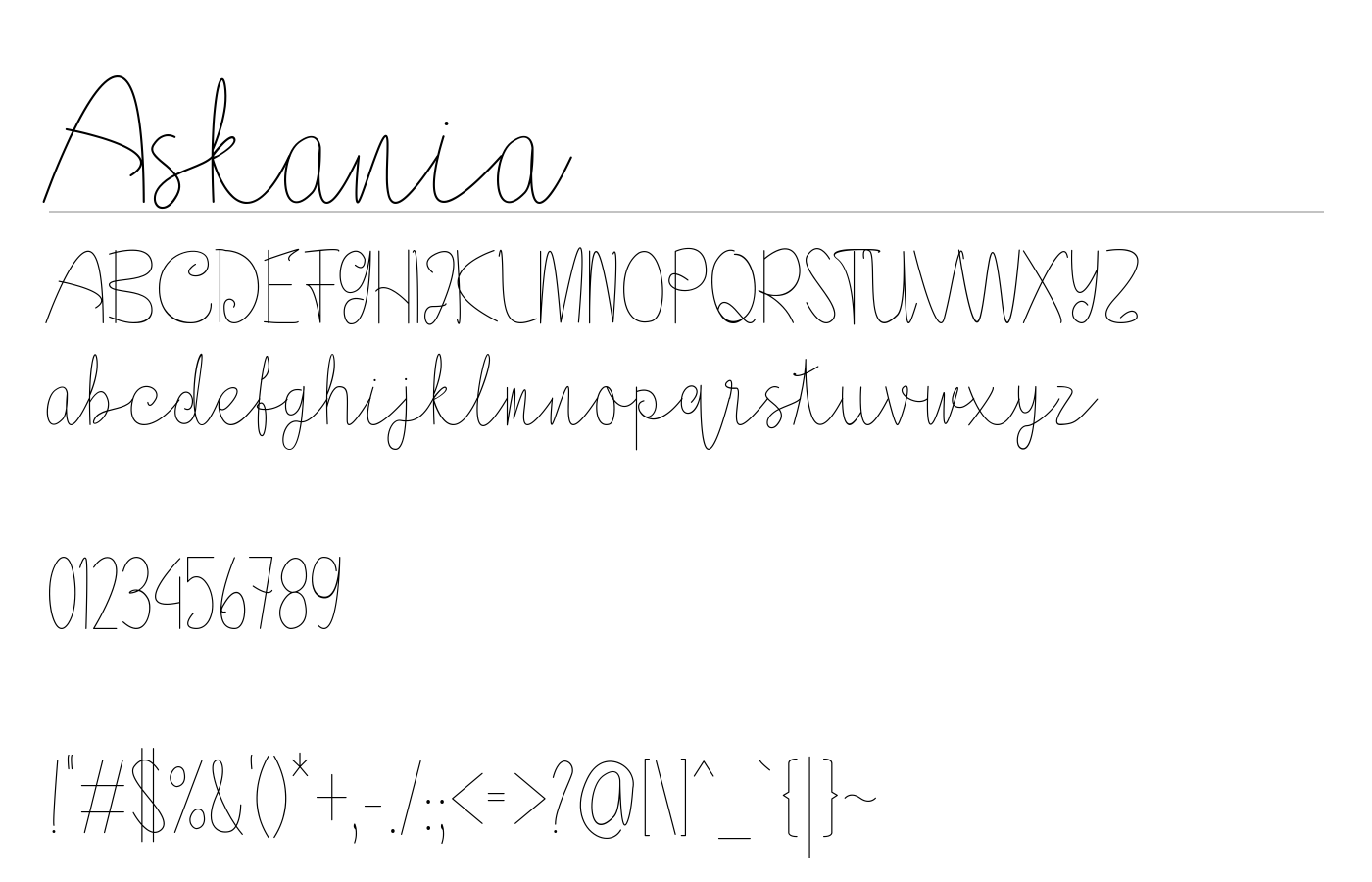
Askania is a delicate, handwritten script font with a light, airy feel created by its thin, graceful strokes and whimsical, flowing letterforms. Its tall, narrow characters and unique curves give it a playful yet elegant personality perfect for creative projects, invitations, and branding that seeks a personal, artistic touch. This font works best in large sizes where its fine lines and intricate details can be appreciated without losing clarity.
Askania Font
About Askania Font
| Font family | Askania Font |
| Designer | Sungi Creative |